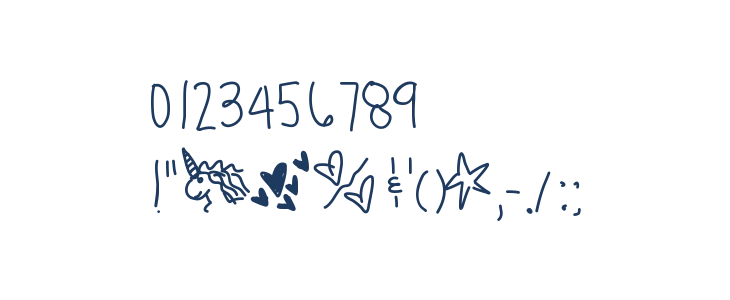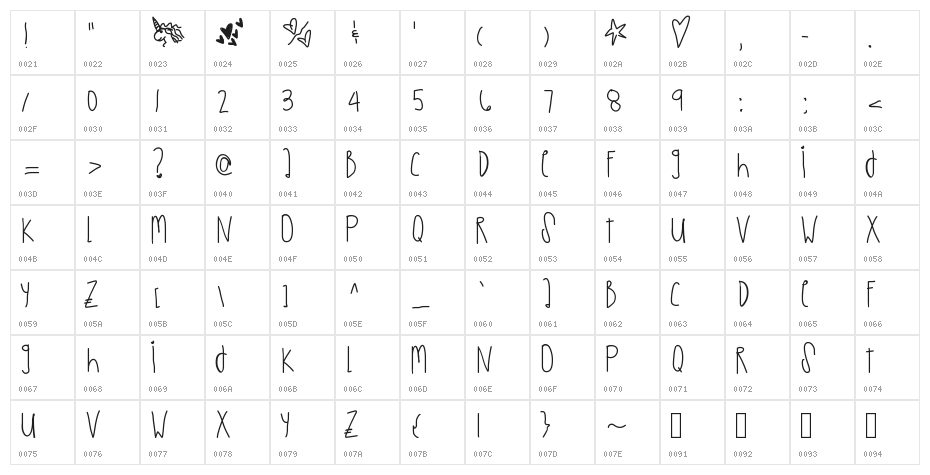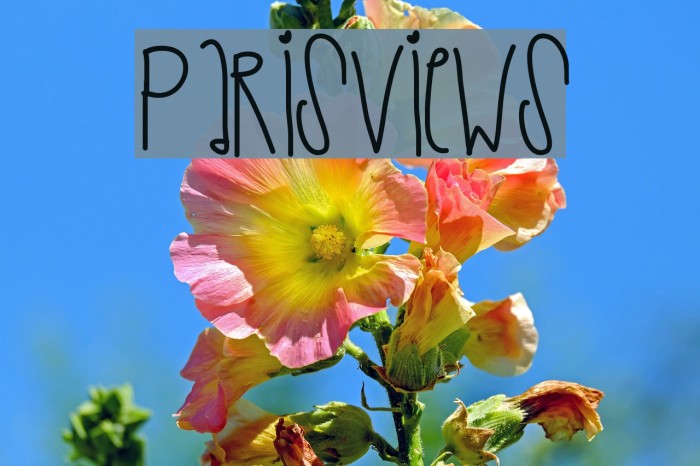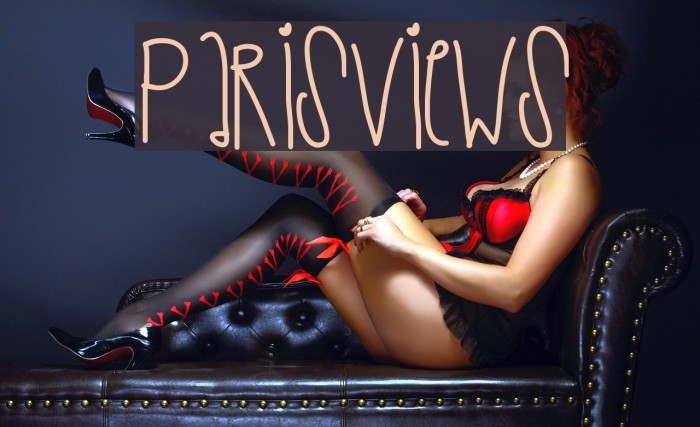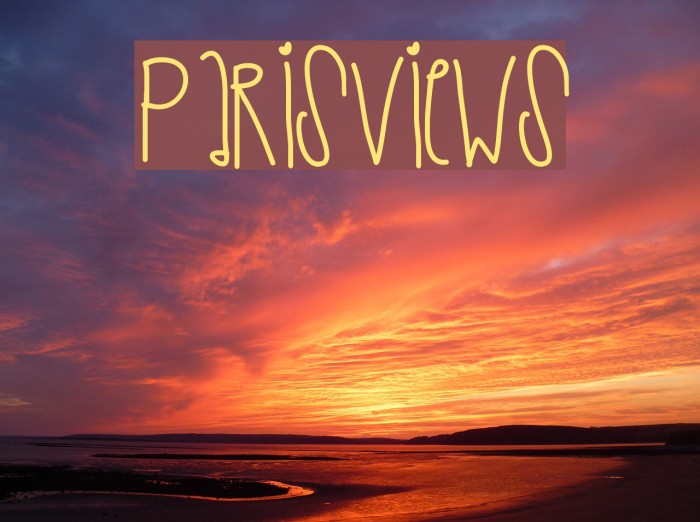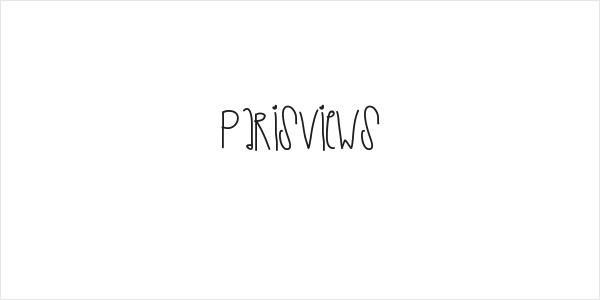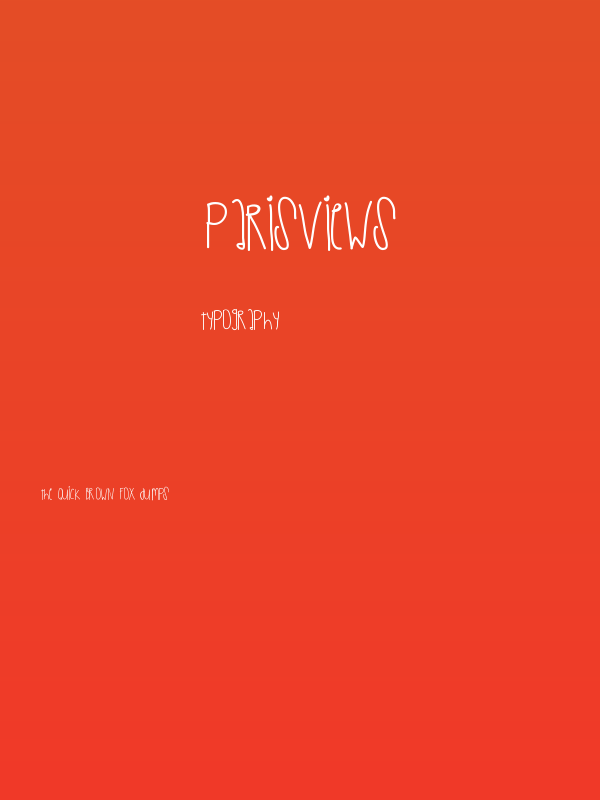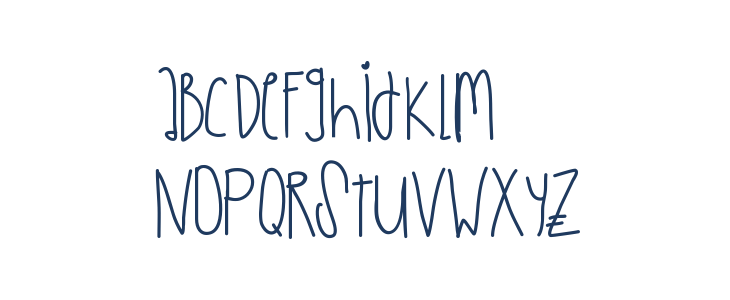
ParisViews Font
ParisViews Description
This playful and whimsical font features tall, narrow letters with a hand-drawn aesthetic. The characters are slightly irregular, adding a charming and casual feel. The uppercase and lowercase letters maintain a consistent style, with elongated vertical strokes and rounded edges. The numbers follow the same playful design, ensuring a cohesive look across all elements. Special characters, including hearts and stars, enhance the font's decorative appeal, making it ideal for creative and informal projects. The overall design is both unique and approachable, perfect for adding a personal touch.
| Width | Condensed |
| Use Case | Logos, Headlines, Creative projects |
| Proposed Projects | Ideal for greeting cards, children's books, playful branding, and creative invitations. |